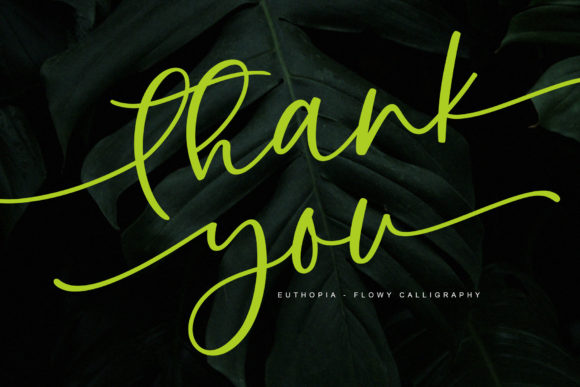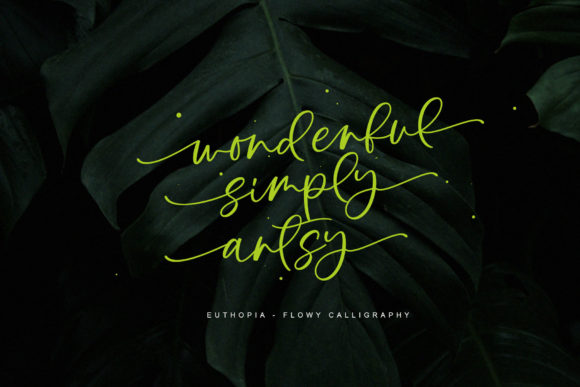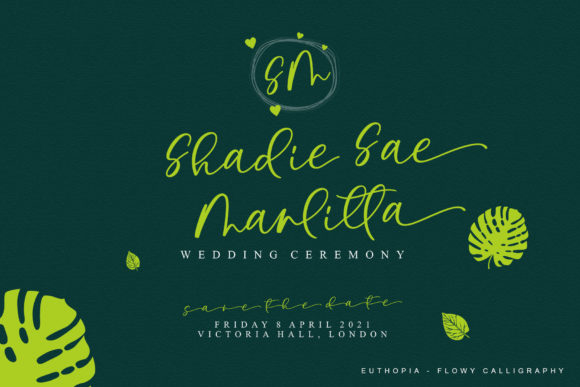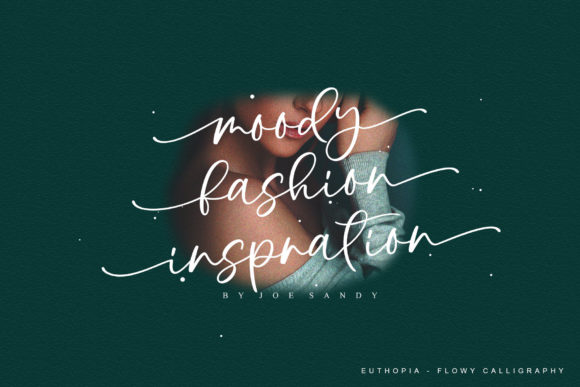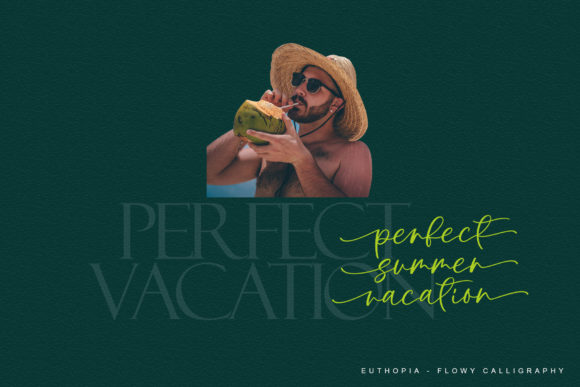
About Euthopia Font
Euthopia is a delicate, relaxed and flowing handwritten font. It has beautiful and well balanced characters and as a result, it matches a wide pool of designs. Add it to your most creative ideas and notice how it makes them come alive!